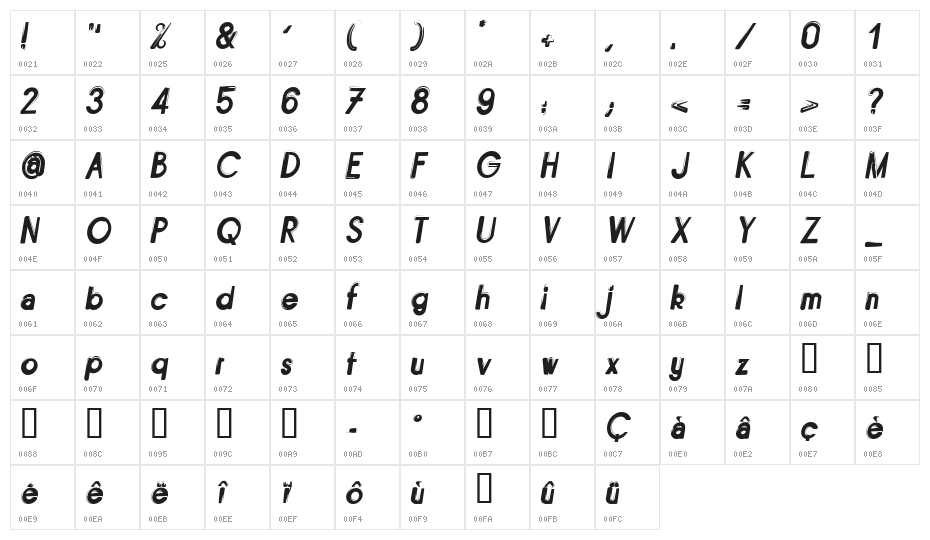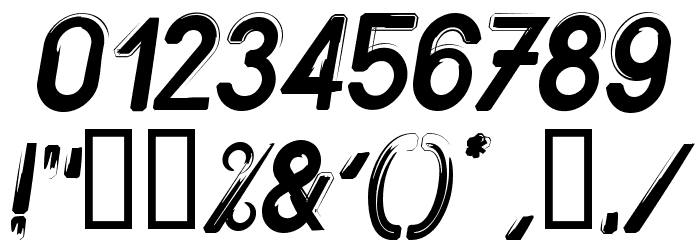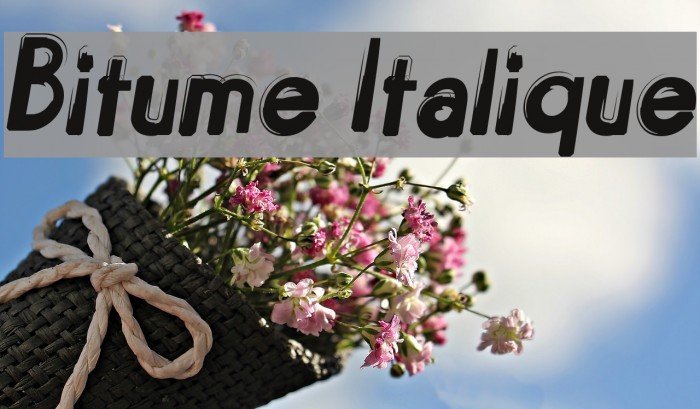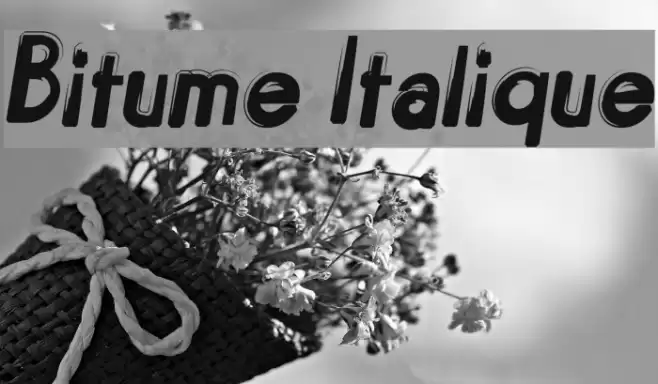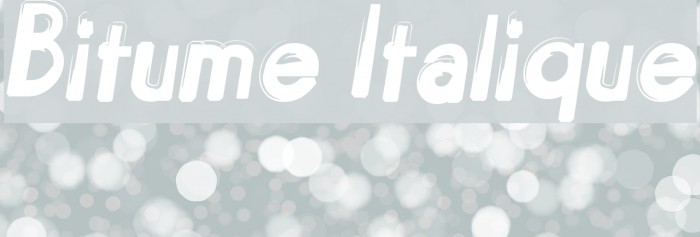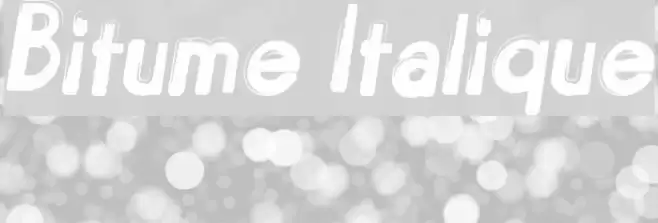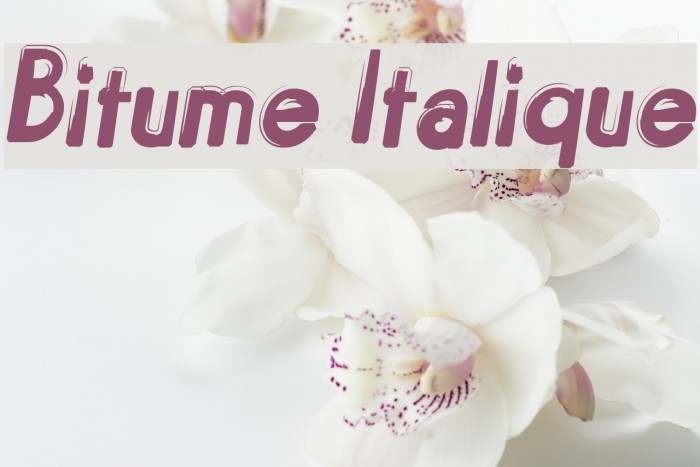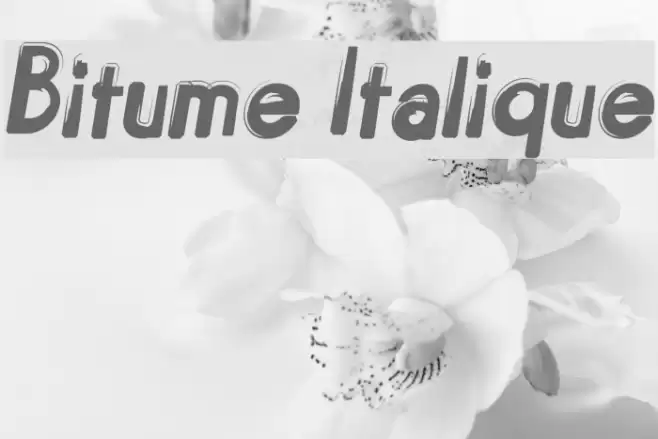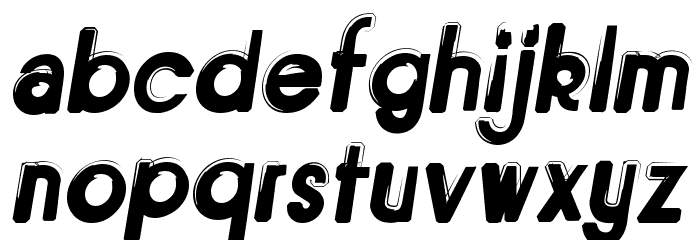
Bitume Italique Font
Bitume Italique Description
This font showcases a bold and dynamic style with a distinct italic slant, giving it a sense of motion and energy. The characters are thick and robust, with a slight shadow effect that adds depth and dimension. The uppercase and lowercase letters maintain a consistent style, with rounded edges and a smooth flow. The numerals are equally bold, ensuring readability and impact. Special characters are included, maintaining the same bold and italicized characteristics. This font is ideal for projects that require a strong visual presence and a modern, energetic feel.
| Proposed Projects | Ideal for branding, advertising, headlines, and poster design. |